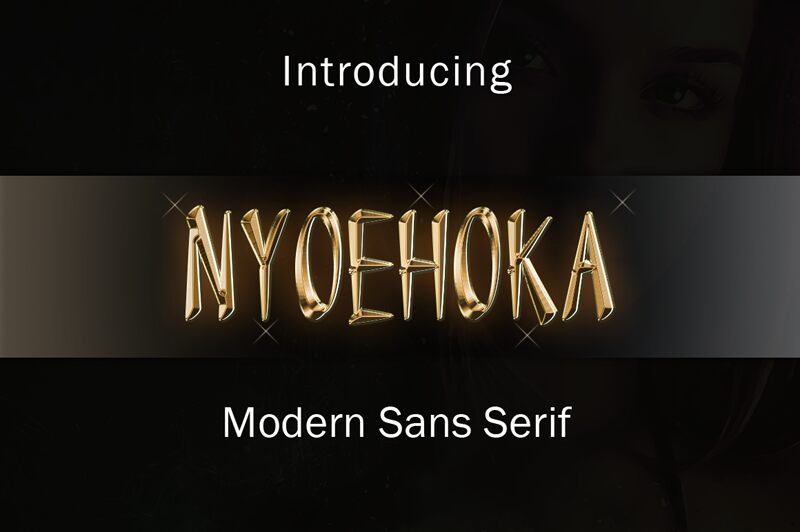
Nyoehoka is a striking display font that exudes a bold, edgy aesthetic. Its condensed width and distinct angular forms create a powerful visual impact, making it well-suited for attention-grabbing headlines, titles, and branding applications.
The unconventional letter shapes and playful, hand-drawn feel lend the font a sense of dynamism and character, adding visual interest to any design. Nyoehoka's versatility allows it to shine in a variety of contexts, from modern editorial layouts to urban-inspired brand identities.
Its bold, expressive personality makes it a compelling choice for designers seeking a font that commands attention and conveys a strong, memorable impression.